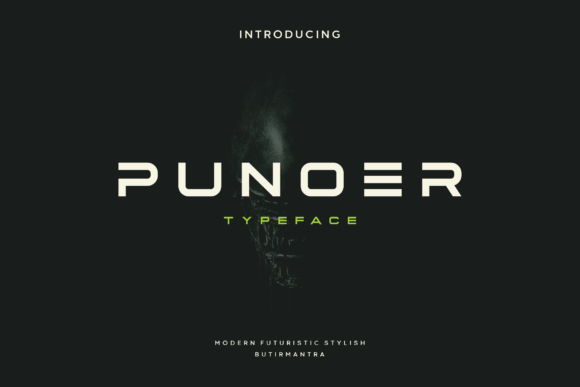
Behold Punoer Font, the crowning jewel of digital aesthetics, a font crafted to grace the screens of tech enthusiasts and design aficionados alike. This sans-serif masterpiece is an exquisite fusion of modernity and elegance, seamlessly blending sharp lines with graceful curves, beckoning you to explore the realm of digital expression.
As a creation of garismantra, Punoer Font embodies the essence of innovation, pushing the boundaries of typography with its striking presence. Its meticulously crafted characters exude confidence and sophistication, promising to elevate your tech websites to new heights of visual appeal.
Unleash your creativity and let Punoer Font weave its magic, transforming mere words into captivating narratives that resonate with your audience. Whether you're crafting blog posts that inspire or coding marvels that redefine the digital landscape, this font will effortlessly elevate your creations, leaving an indelible mark on the minds of those who encounter it.
Punoer Font is more than just a font; it's a gateway to a world where technology and art harmoniously intertwine. Experience the allure of its clean lines and captivating curves as they effortlessly enhance your designs, bringing a touch of sophistication and modernity to every project you undertake.
Step into the future of digital aesthetics with Punoer Font, where innovation and beauty effortlessly converge. Its versatility knows no bounds, seamlessly adapting to your creative vision, whether you're crafting sleek landing pages, immersive user interfaces, or captivating marketing materials.